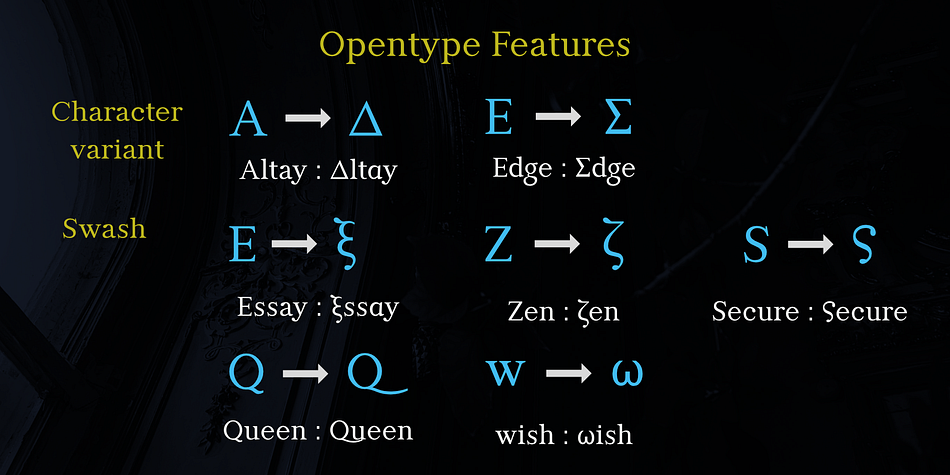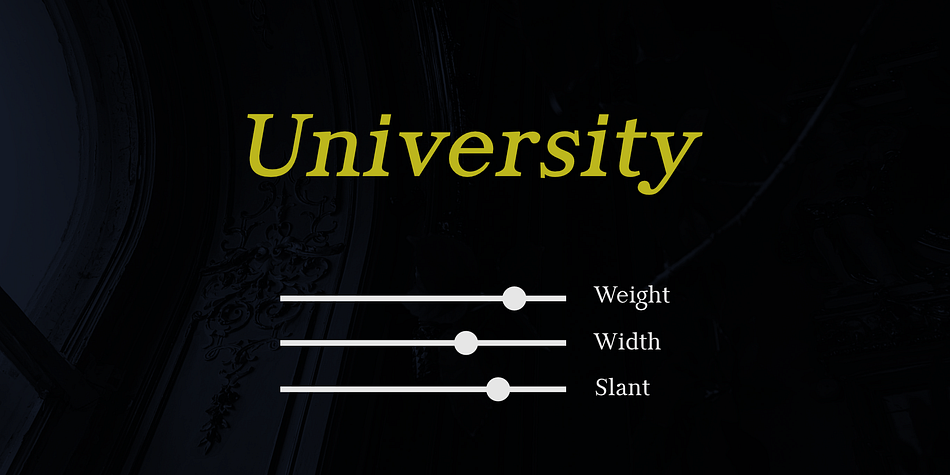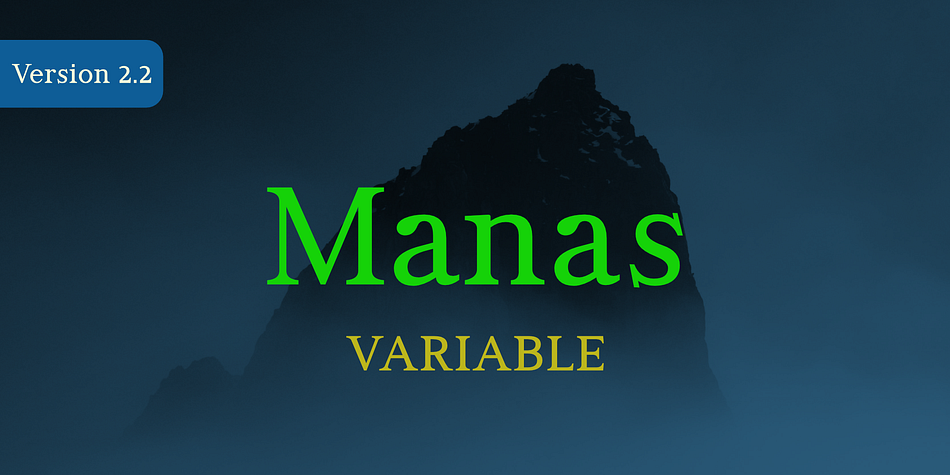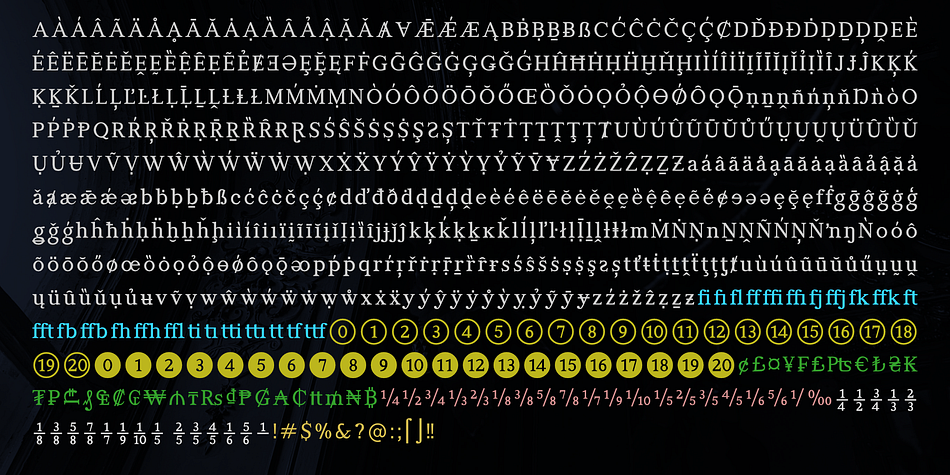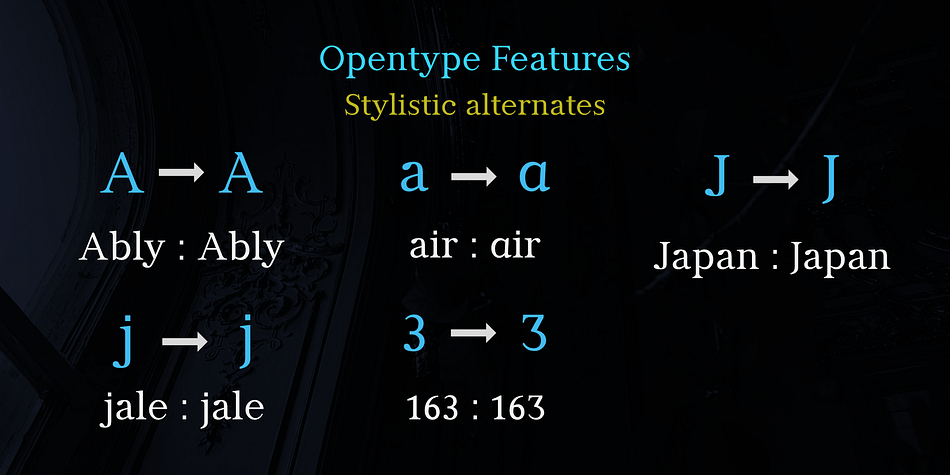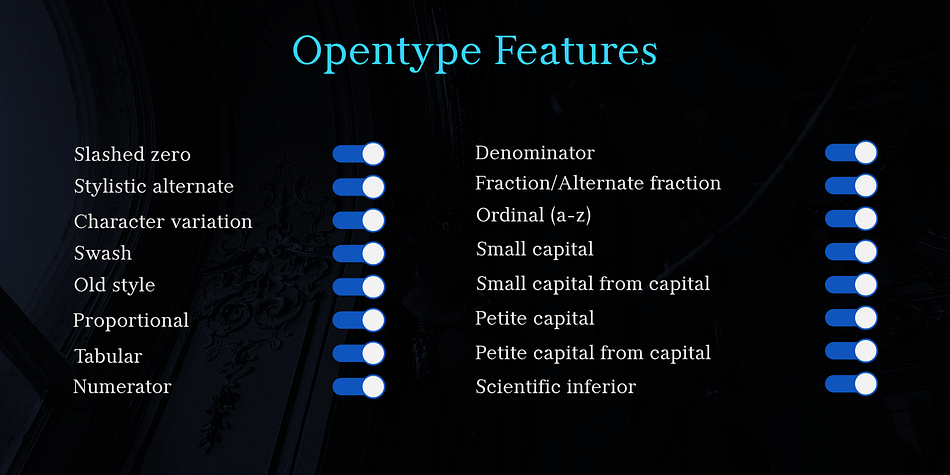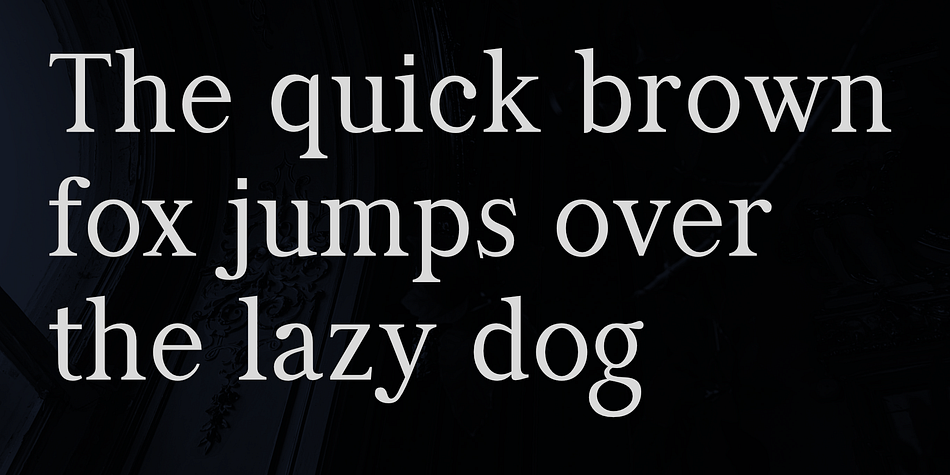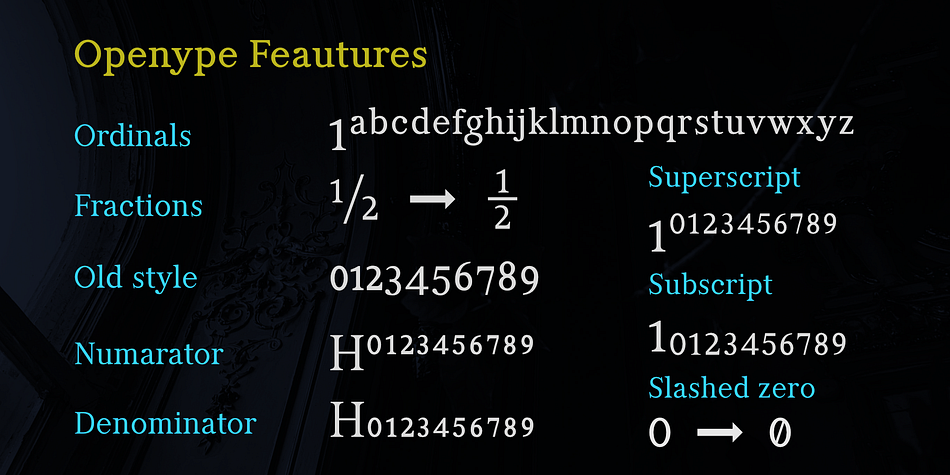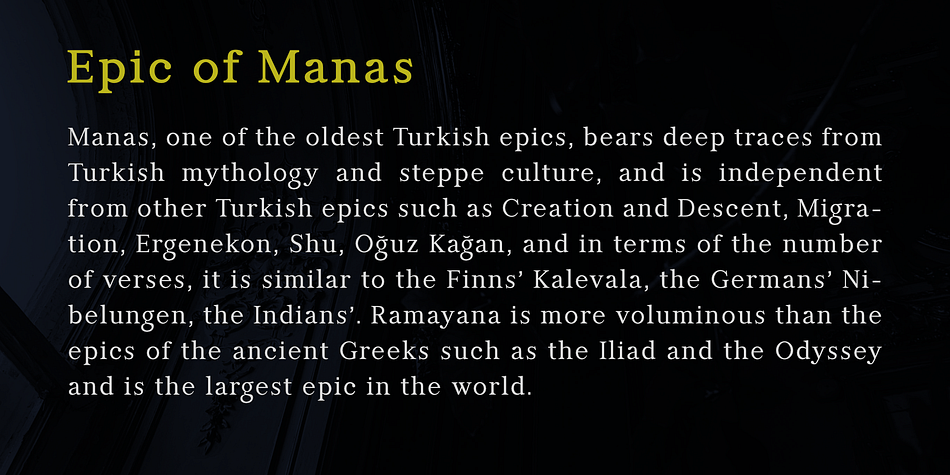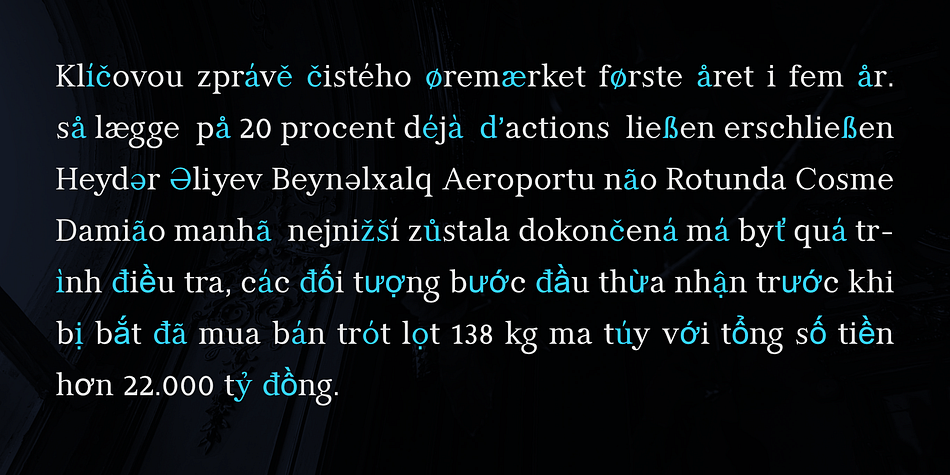
Manas VF
Designed by İsmail AYDIN, Manas VF is a serif font family published by Fontuma.
Manas Variable
Manas is the name of the epic of the Kyrgyz Turks. The font family is designed with serifs to reflect the characteristics of the epic from which it takes its name. One of the most important features of Manas Variable is that it is multilingual. Manas Variable also impresses with the axes it contains. Manas Variable includes weight, width and slant axes. The Weight values of the font are between 300-800, and the Slant axis is between 0-12. In addition, Manas Variable has the feature of narrowing and expanding from the narrowest to the widest between UltraCompressed and ExtraExpanded due to the width axis it contains. These features of the font are provided by 96 instances. Accordingly, the Manas Variable font has the ability to display variable behavior that can be expressed in millions, thanks to its three axes. First of all, Manas Variable is an innovative and open-to-update fund. It is also aesthetic. Manas Variable has all the design and opentype features that the Manas font has in the second version. The font has been reconsidered and its design has been renewed to include many innovations in terms of design and to gain a more aesthetic and more stable form. To put it briefly, Manas Variable has many dazzling features with its open type features. We can list them as follows:
● Slashed zero
● Stylistic alternatives for A, a, J, j and 3
● Character variation for letters A and E
● Swash for letters E, S, Z, w and Q
● Old style
● Proportional
● Tabular
● Numerator
● Denominator
● Fraction/Alternate fraction
● Ordinal (a-z)
● Small capital
● Small capital from capital
● Petite capital
● Petite capital from capital
One of the most important works we carry out regarding Manas Variable is related to Small Capital and Petite Capital letters. Small Capital and Petite Capital letters can be derived from both lowercase and uppercase letters, and most accents in the Latin alphabet are supported. Manas Variable is a font that offers multi-purpose usage opportunities, especially suitable for use in printed products, media, digital environments and in every field of writing. As Fontuma Foundry, we actually designed not this user-friendly font, but the happiness and comfort you will feel when pressing the keyboard keys.